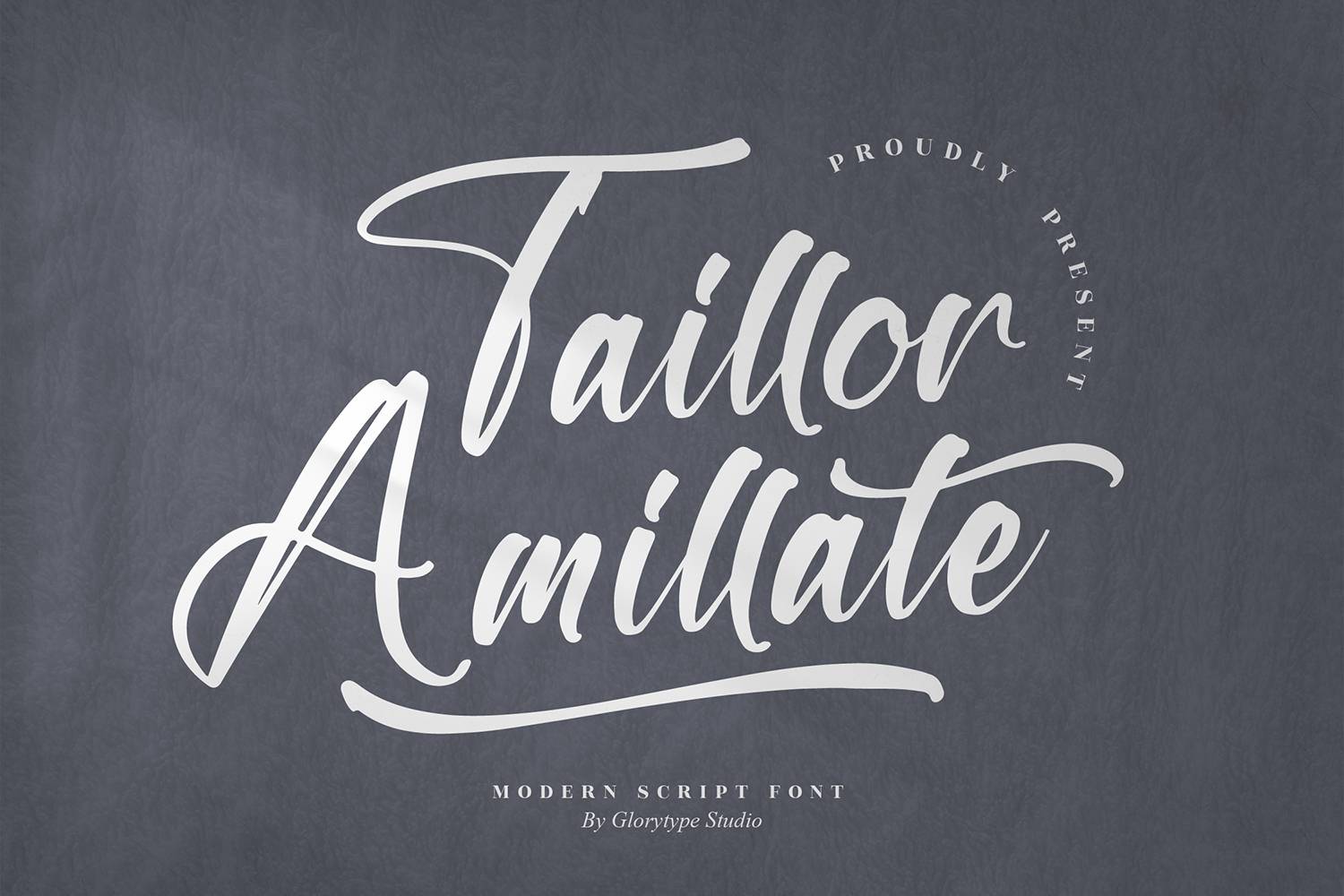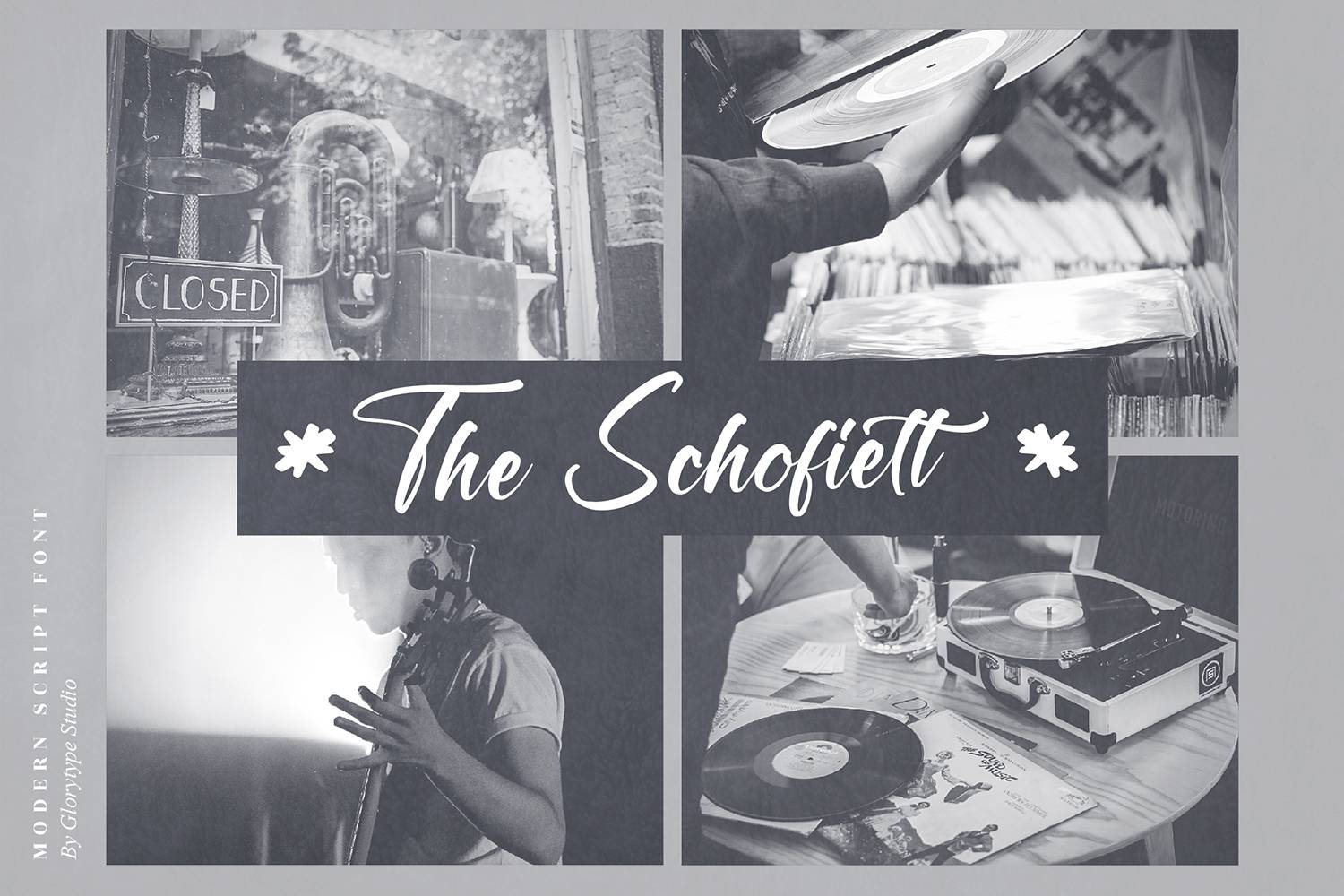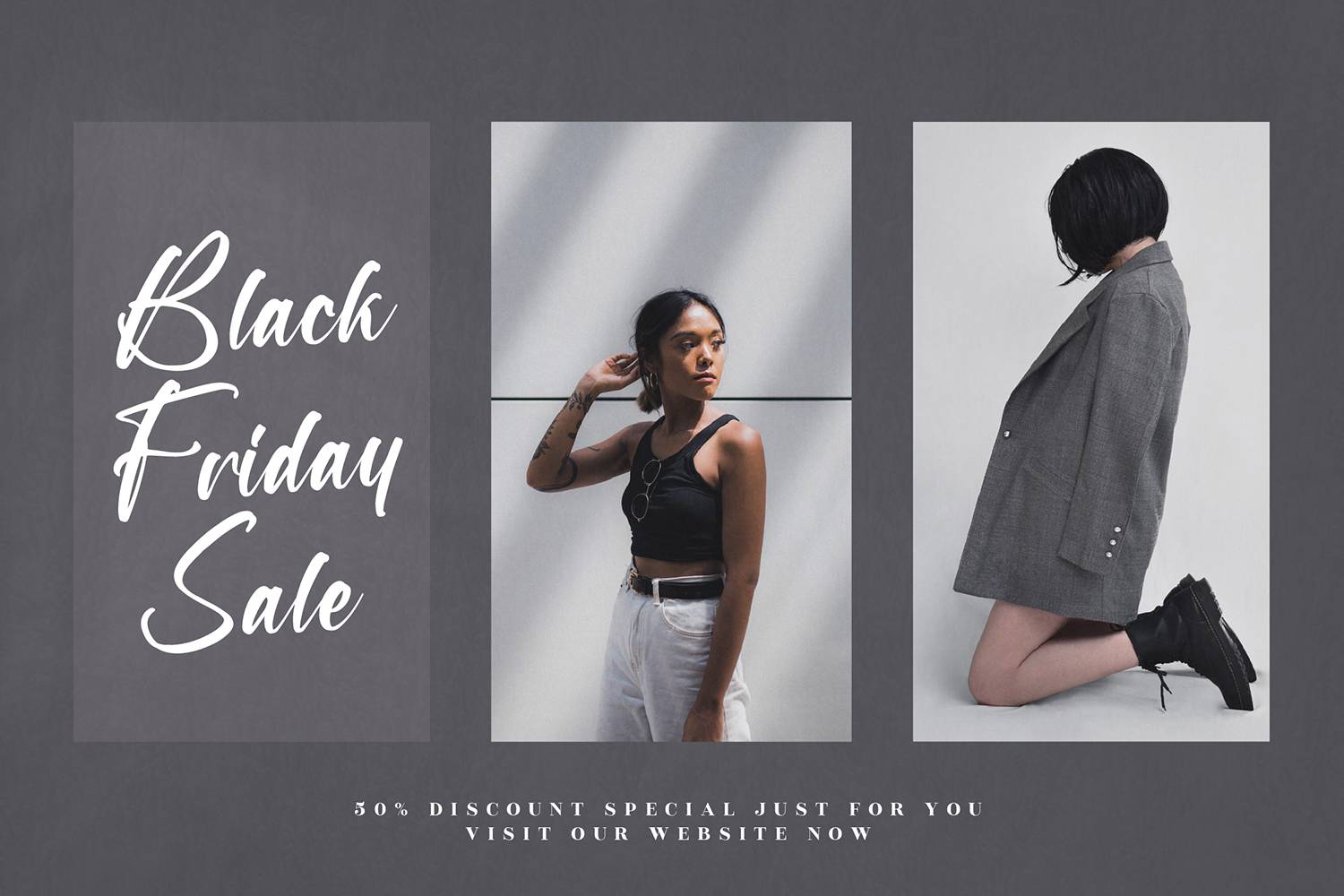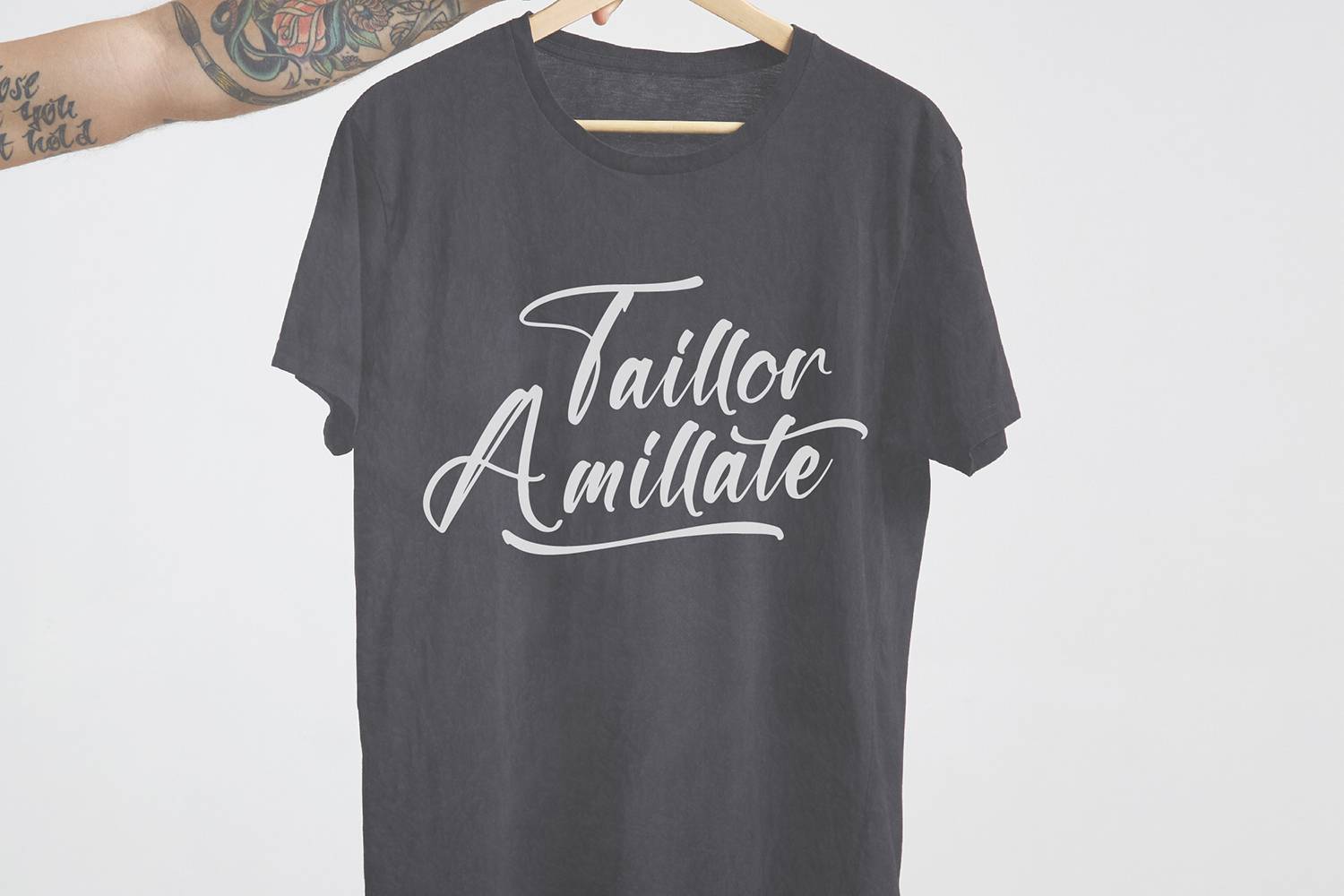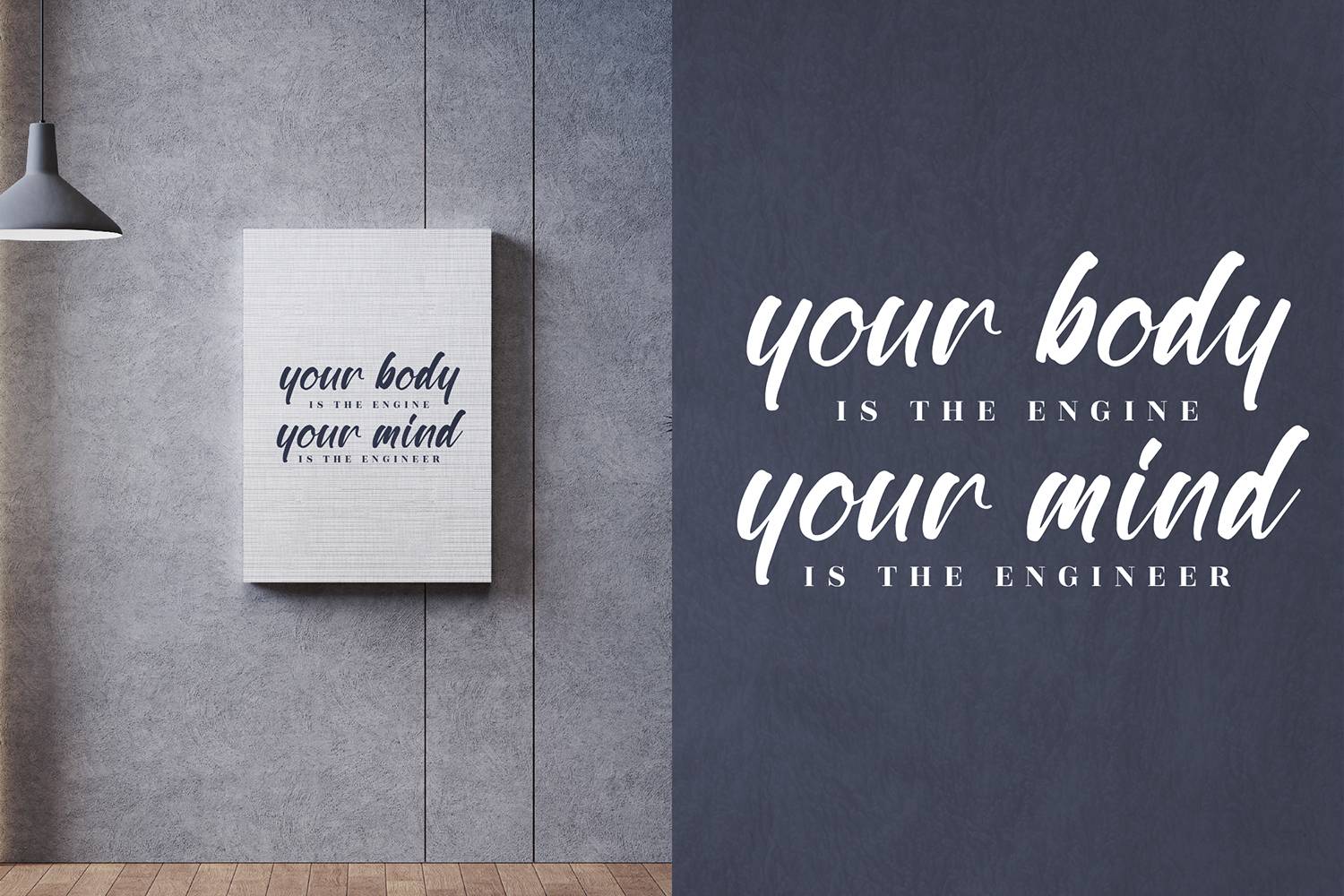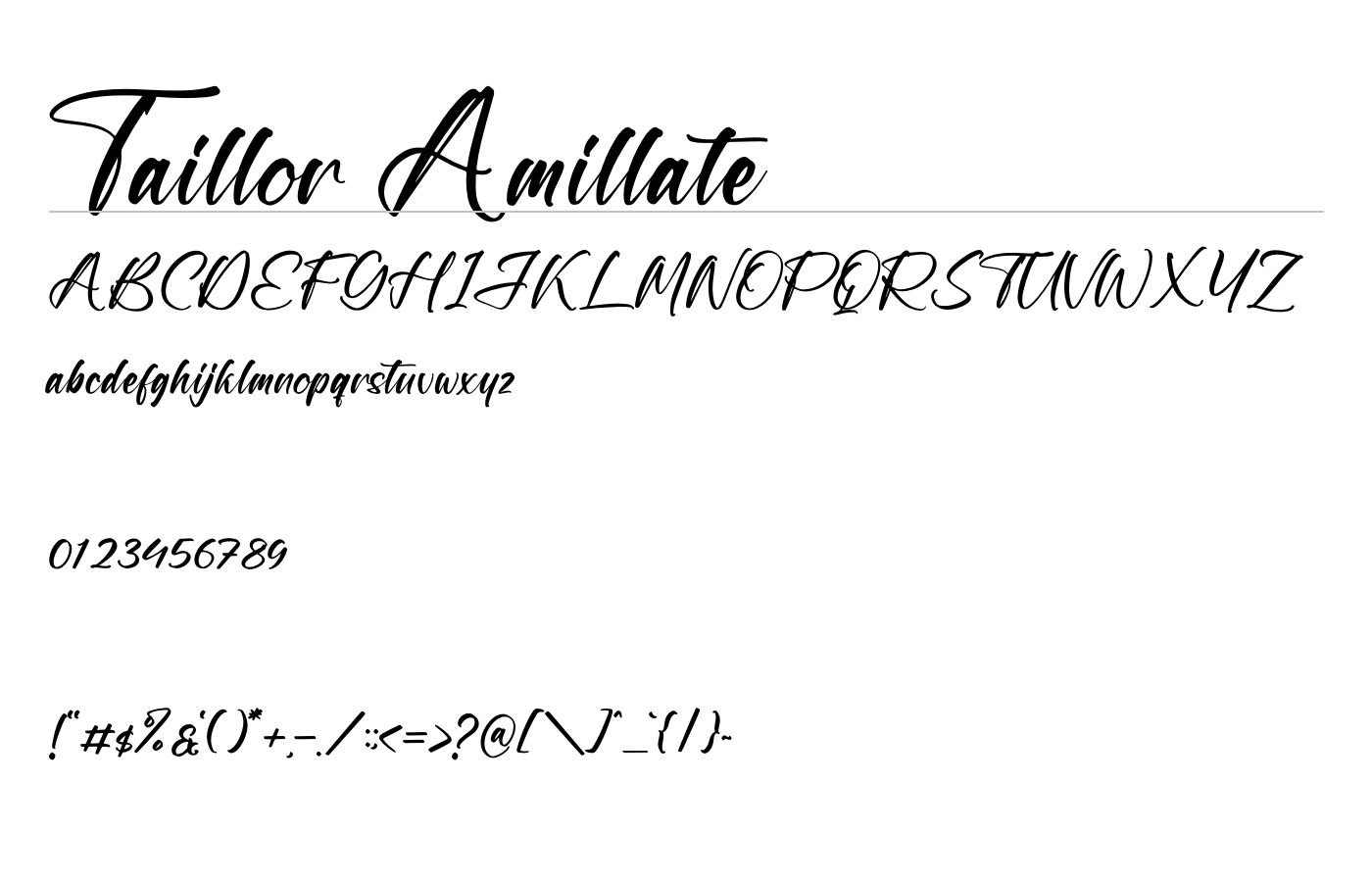
Taillor Amillate is a stylish script font with elegant, flowing letterforms that mimic natural handwriting. It features medium weight strokes with a smooth, calligraphic flair, making it perfect for adding a touch of sophistication and personality to branding, invitations, and headlines. Its graceful curves and balanced spacing give it a refined yet approachable feel, ideal for fashion, luxury, and creative projects seeking a handwritten charm.
Taillor Amillate Font
About Taillor Amillate Font